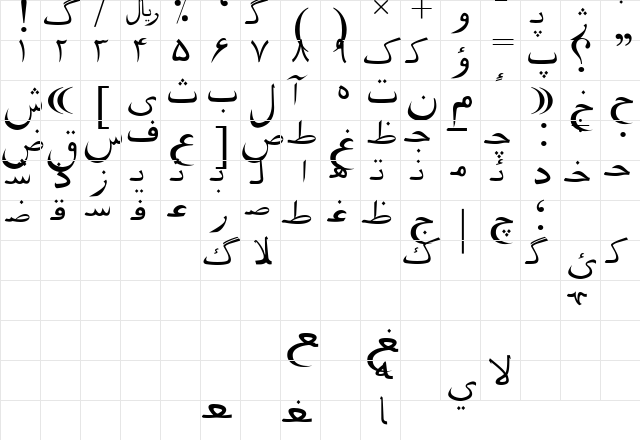
Pars Ziba - Draft Regular
Design Context for Pars Ziba - Draft Typeface
Pars Ziba - Draft offers clean, dependable letterforms without strong stylistic allegiance, making it a practical choice for designers who need flexibility.